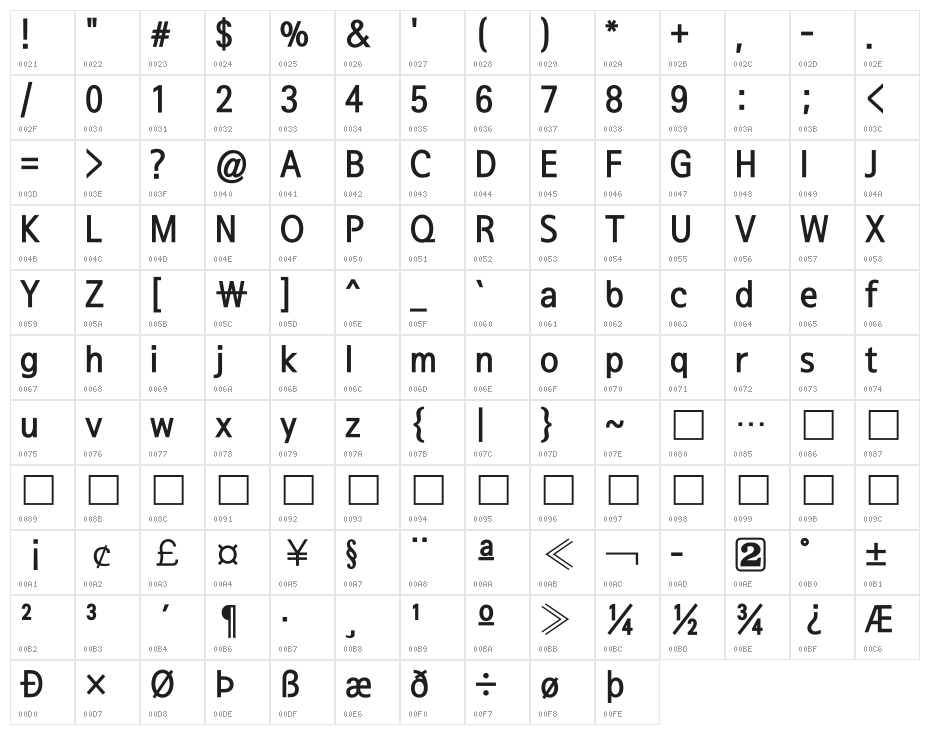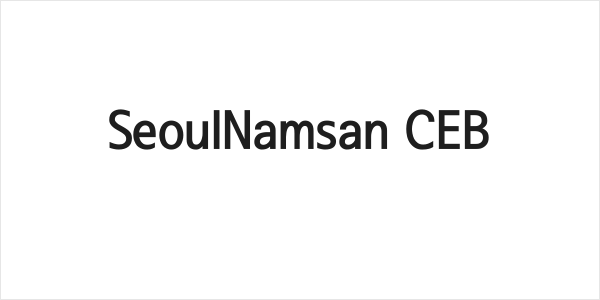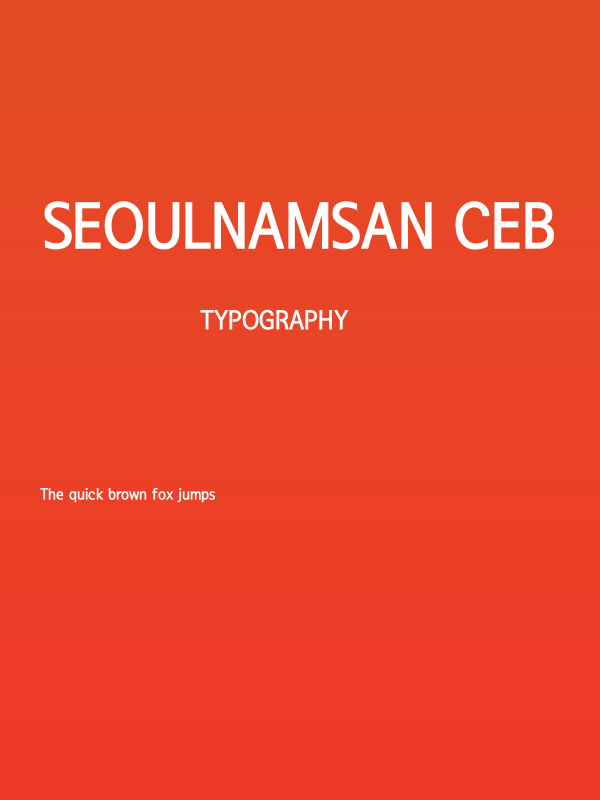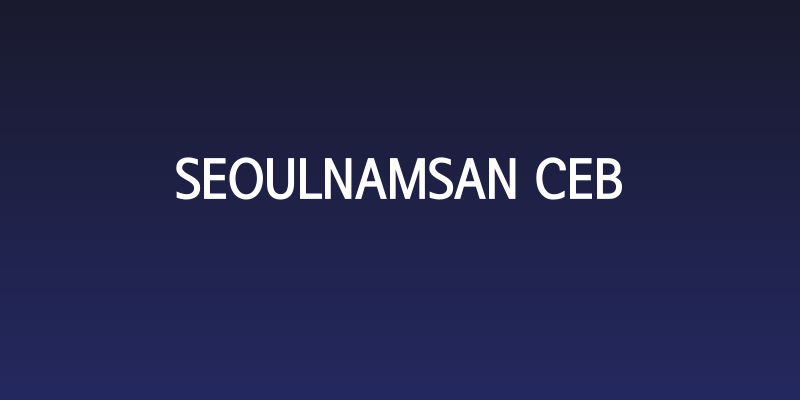
SeoulNamsan CEB Font
SeoulNamsan CEB Description
This font features a clean and modern sans-serif design, characterized by its straightforward and highly legible letterforms. The characters exhibit a uniform stroke width, contributing to a balanced and harmonious appearance. The uppercase letters are bold and assertive, while the lowercase letters maintain a consistent height, ensuring readability across various sizes. The numerals are clear and distinct, making them suitable for both digital and print applications. Special characters are well-integrated, maintaining the overall aesthetic. This font's simplicity and clarity make it versatile for a wide range of design projects.